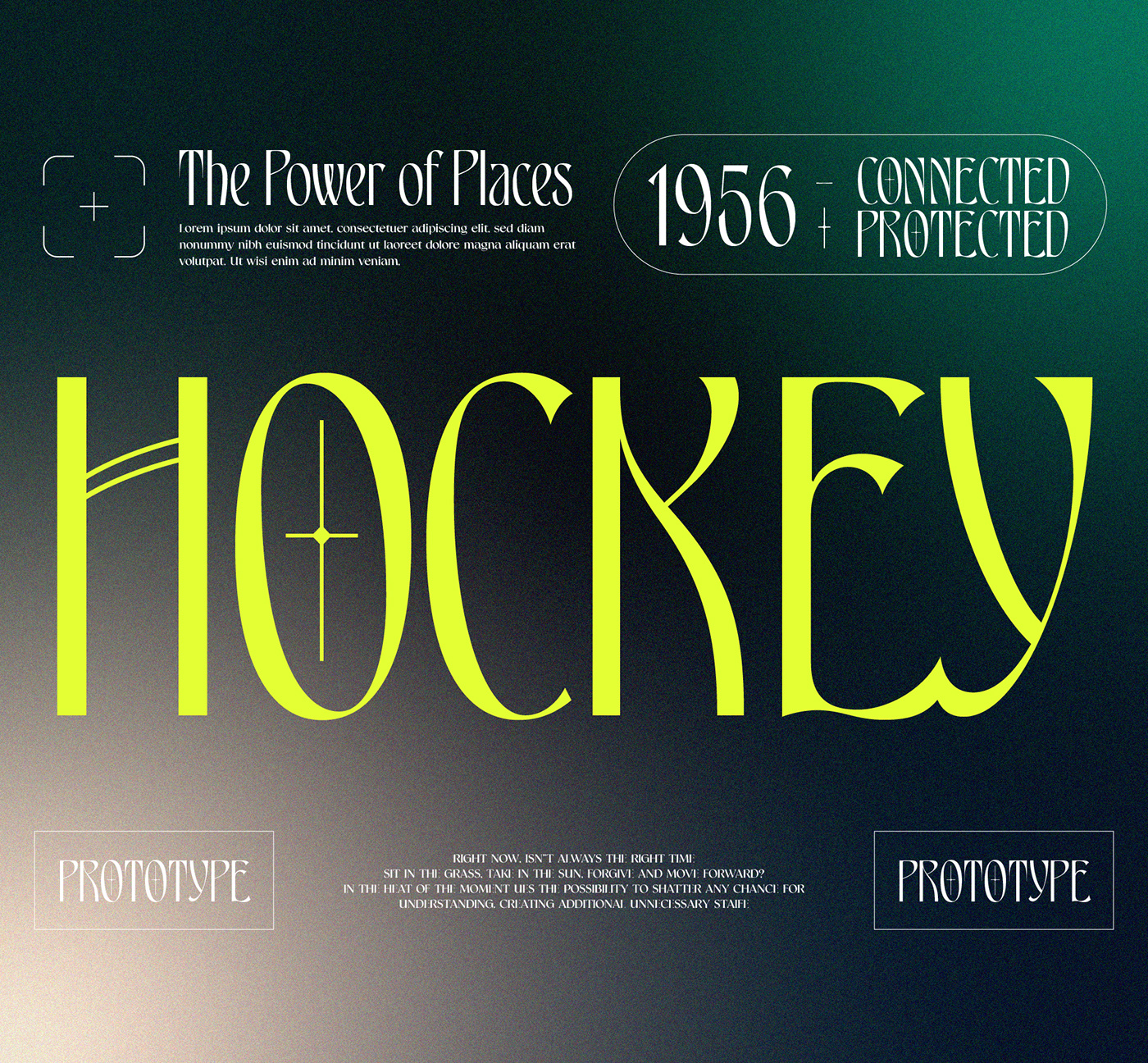
Barlon is a typefaces with a strong characteristic. The ideas are from Art Nouveau era, explore some of other art era and combining them into strong characteristic Barlon. The final fonts are looks Classic yet Modern, like what we do on the preview above, how the fonts can "stands" within your design.